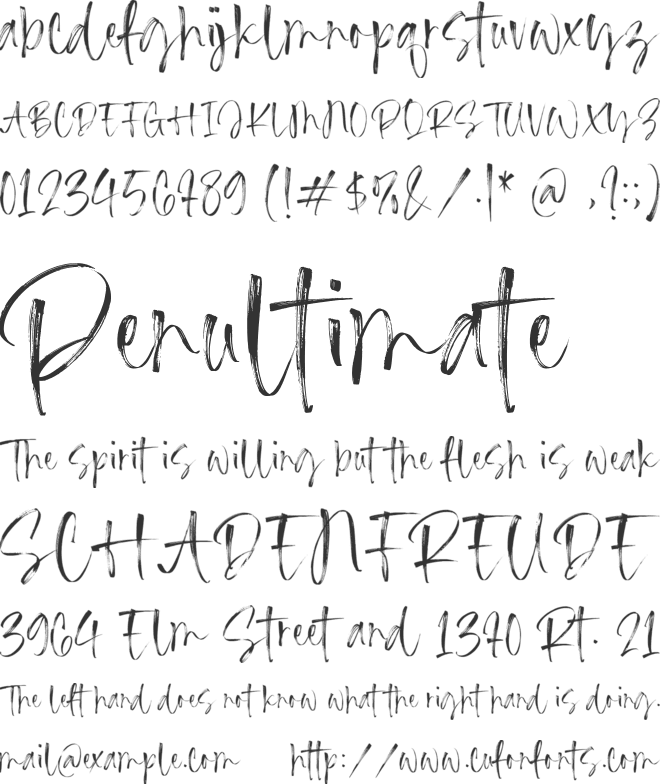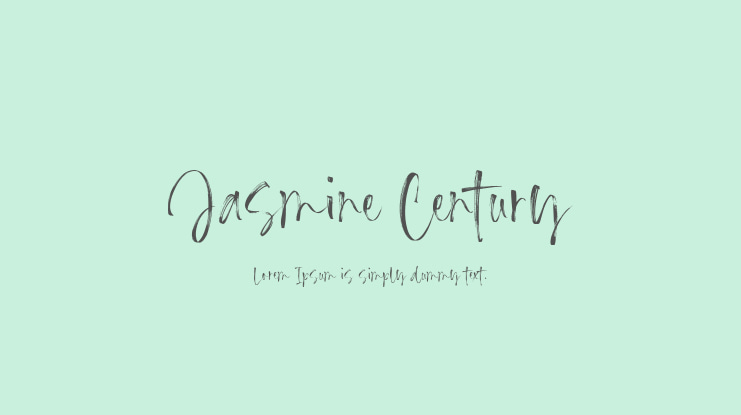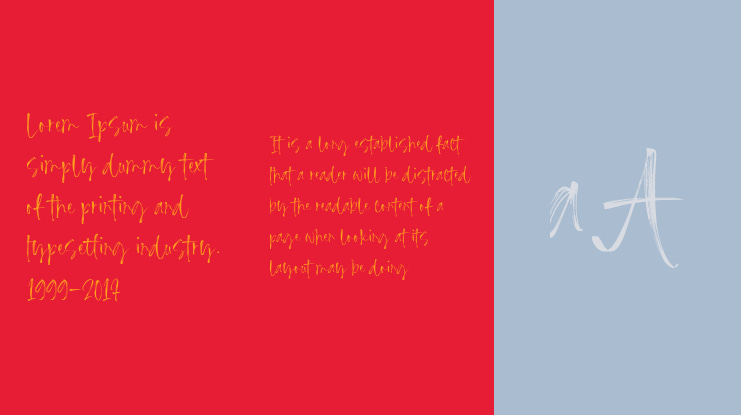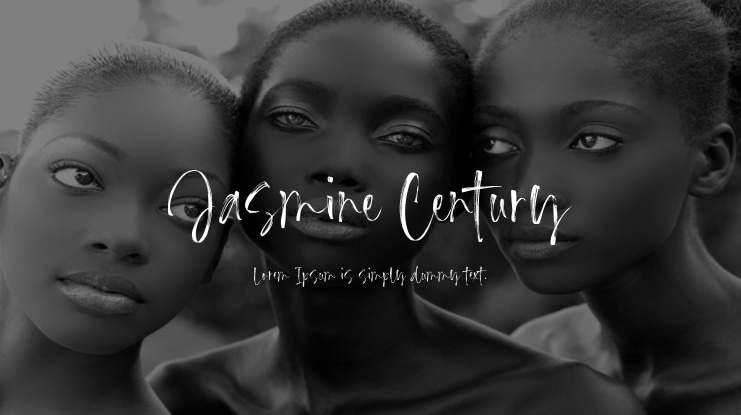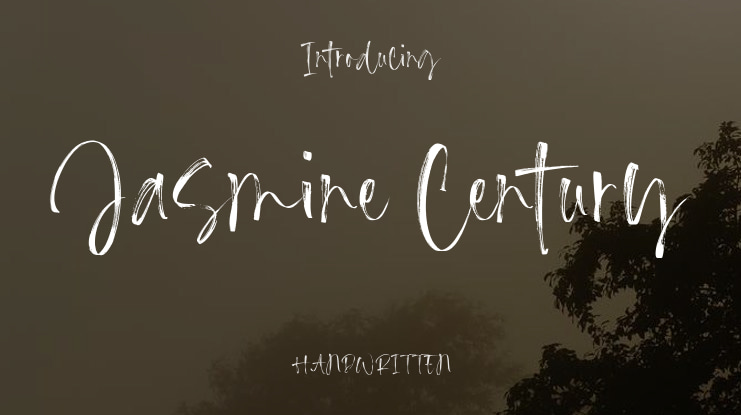
Jasmine Century Font
Introduced by Timurtype Studio!
Jasmine Century is a Handbrushed Font
This fonts are a beautiful and artistic type of font that mimics the look of letters created by hand using a brush or paint. Each character in a handbrushed font is carefully crafted with fluid brush strokes, resulting in a unique and natural handwritten appearance. These fonts add a touch of authenticity, creativity, and a sense of personalization to any design project. Whether used for logos, branding, invitations, or social media graphics, handbrushed fonts bring a charming and organic feel that can convey a wide range of styles, from casual and playful to elegant and sophisticated. With their versatility and ability to evoke emotions, handbrushed fonts have become a popular choice for designers looking to add a touch of artistic expression to their artwork.
Jasmine Century Font also supports multilingualism.
Jasmine Century font Features premium :
-Full Set of standard alphabet and punctuation